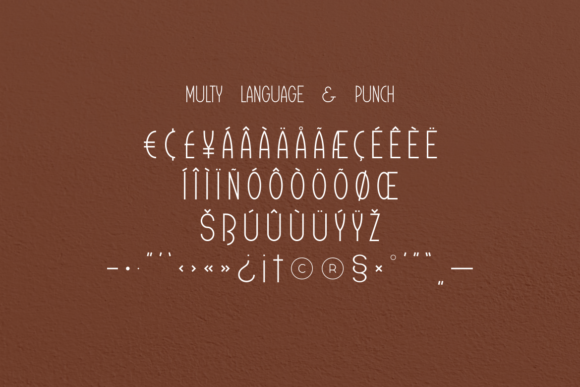
Introduction to Nodhe Font Font
You know that moment when you’re working on a creative project and you’re struggling to find the perfect font to match your vision? The frustration is real, but what if you had a reliable design resource that could elevate your entire project? Enter Nodhe Font Font, a stylish and cool sans-serif font that’s about to become your new go-to asset.
Whether you’re working on a personal project or a client’s design, Nodhe Font Font is the perfect addition to your library. Its high-quality design and versatility make it a valuable resource for any creative endeavor. With a transparent background, this font can seamlessly blend into any design, making it a must-have for designers who want to take their work to the next level.
Key Features of Nodhe Font Font
- High-quality font with transparent background, perfect for creative projects requiring a clean and modern design.
- Unique characteristics: Nodhe Font Font features a unique blend of modern and minimalist design elements, making it ideal for creative projects requiring a touch of elegance.
- Designed to be versatile, Nodhe Font Font can be used in a variety of creative contexts, from branding and marketing materials to digital products and print media.
Honest Review: Nodhe Font Font
As a designer, I’m always on the lookout for high-quality design resources to elevate my creative projects. Recently, I stumbled upon the Nodhe Font Font, and I’m excited to share my honest review with you.
- ✨ The Nodhe Font Font has a beautiful, modern design that’s perfect for a variety of creative projects, from branding to digital design.
- ✨ The transparent background option allows for seamless integration with any design element, giving you complete control over the final look.
- ⚠️ The Nodhe Font Font is a sans-serif font, which may not be suitable for projects that require a more traditional or serif font.
- ⚠️ Some users may find the font to be a bit too minimalist, which could limit its versatility.
Overall, I’m impressed with the Nodhe Font Font. While it may have some limitations, its high-quality design and free download make it a valuable resource for designers. Whether you’re working on a branding project or a digital design, this font is definitely worth considering.
The Nodhe Font Font is ideal for creative projects that require a high-quality, free download font with a transparent background. Some common use cases include:
- Web design projects
- Print design projects
Yes, the Nodhe Font Font is designed to be highly legible and versatile, making it suitable for use with a transparent background. The font’s high quality design ensures that it will display clearly and consistently across various design elements and backgrounds.